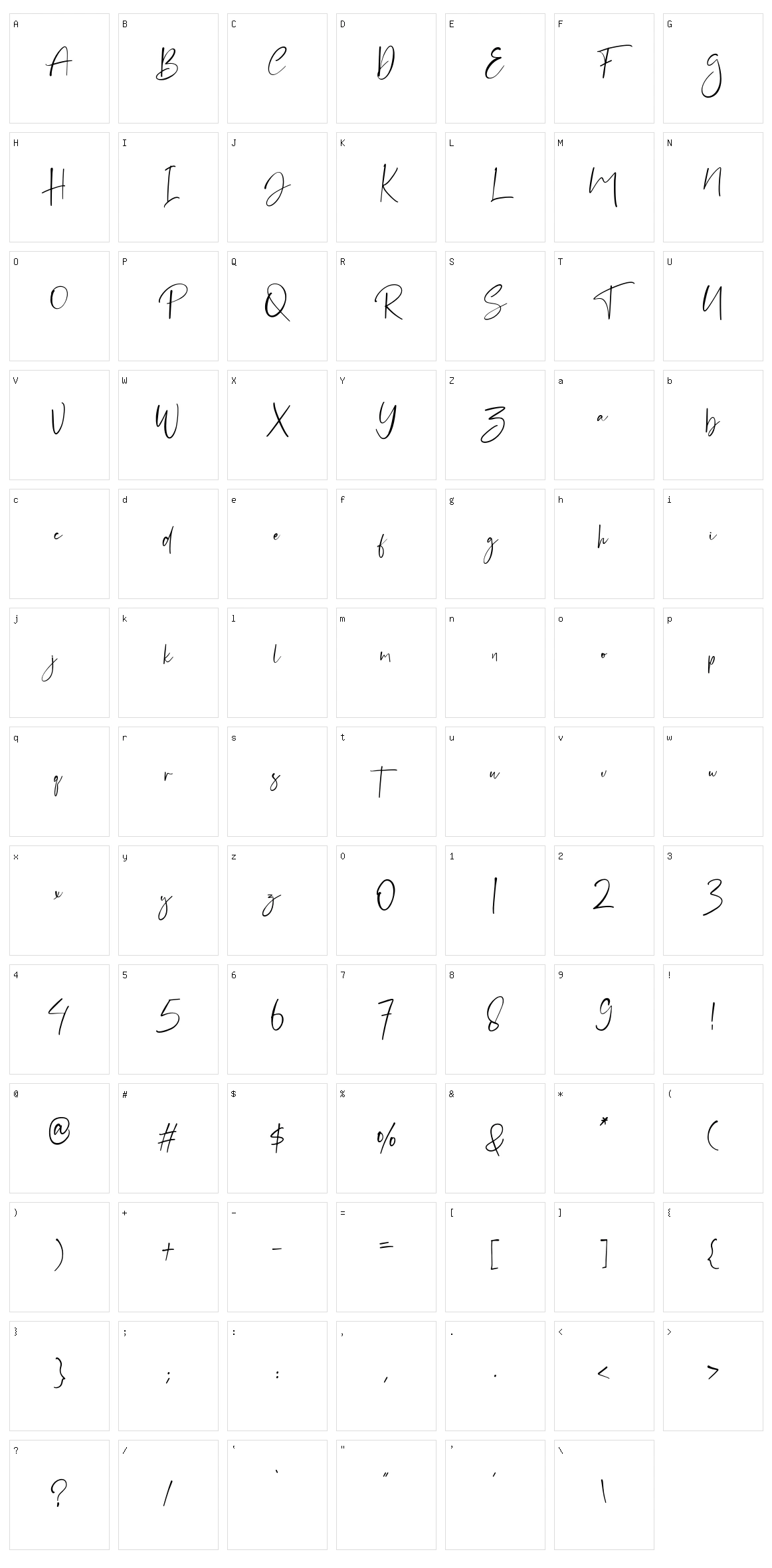
The free font Hublland is carefully designed by SpoonSummer, showcasing a thoughtful balance of creativity and usability and falls under the Script font style. When you download the ZIP file, it contains only 207.06 KB of font files, making it lightweight and quick to download. Please review the license details below to understand permitted usage and distribution rights. If license information is not available, we recommend using this font for personal projects only or contacting the author directly for commercial usage permissions.